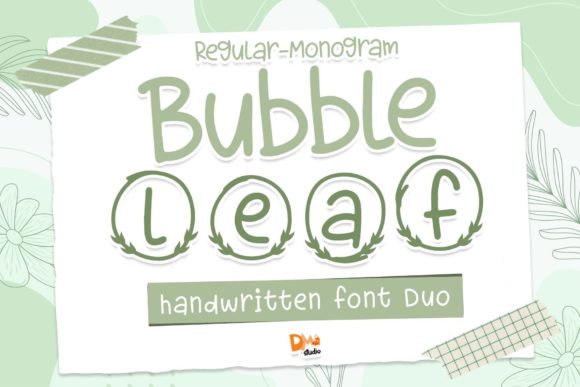
The Magical World of Bubble Leaf Font
Have you ever been in the middle of a design project, and suddenly, you’re stuck on finding the perfect font? I remember a recent experience where I was working on a craft project for a client who wanted a custom monogram. I scoured the internet for hours, but nothing seemed quite right. That’s when I stumbled upon the charming Bubble Leaf Font. It was love at first sight! 💕
An Honest Review of Bubble Leaf Font
As a designer, I’m always on the lookout for fonts that can add a personal touch to my projects. Here’s what I think about Bubble Leaf Font:
- ✨ Unique and Playful Design: Bubble Leaf Font is a handwritten and decorative duo font that adds a touch of whimsy to any design.
- ✅ Perfect for Monograms and Crafts: The font is great for creating custom monograms, craft projects, and other DIY designs.
- 💫 Highly Versatile: You can use Bubble Leaf Font for a wide range of projects, from digital designs to print materials.
While I adore Bubble Leaf Font, there are a few things to keep in mind:
- 🤔 Limited Use in Formal Designs: Due to its playful nature, Bubble Leaf Font might not be the best choice for formal designs or projects that require a more professional tone.
- ⚠️ Glyph Limitations: Some users have reported that the font could benefit from more glyph options, particularly for non-English languages.
- Experiment with the font’s OpenType features, such as stylistic alternates, to add more personality to your design.
The Backstory of Bubble Leaf Font
The story behind Bubble Leaf Font is one of passion and creativity. The font was designed by a team of typographers who wanted to create a unique and playful font that would inspire crafters and designers. They drew inspiration from nature, art, and everyday life to create a font that’s both beautiful and functional.
Q: What type of projects is Bubble Leaf Font best suited for?
A: Bubble Leaf Font is perfect for craft projects, custom monograms, and creative designs. It’s also great for digital designs, print materials, and social media graphics.
Q: Is Bubble Leaf Font available in multiple languages?
A: Bubble Leaf Font may not support all languages, but it does include a range of glyphs and characters for English and other languages. Be sure to check the font’s character set before using it for a specific project.